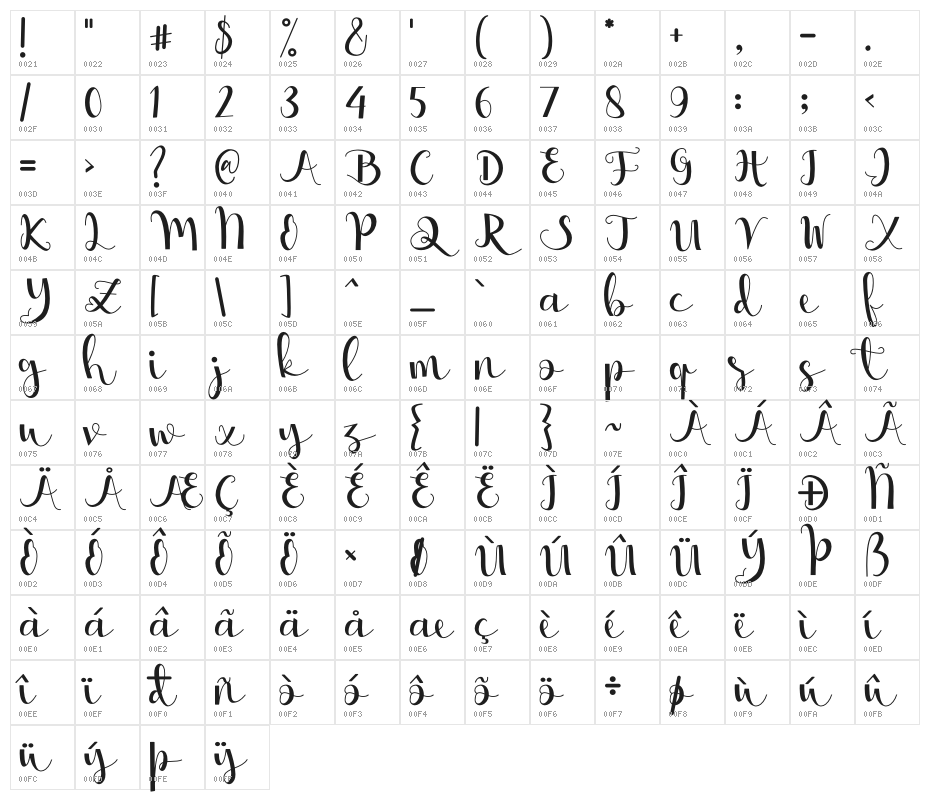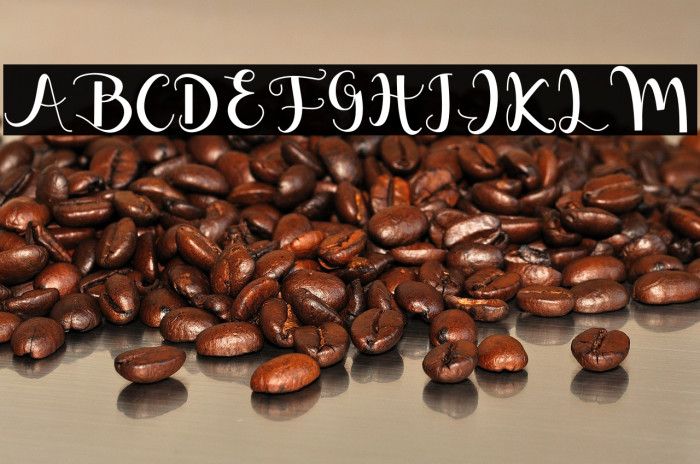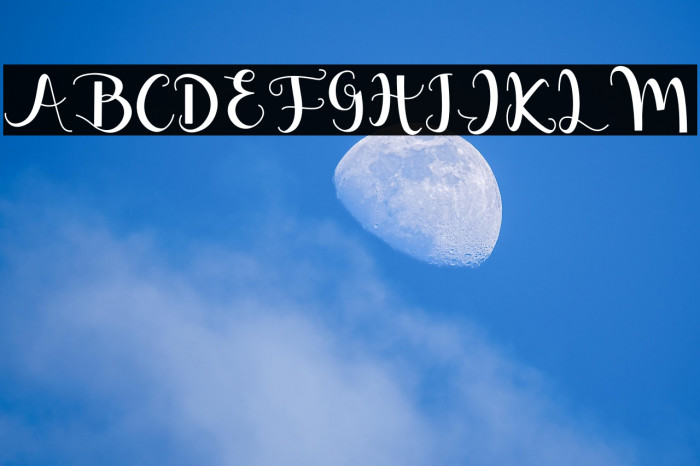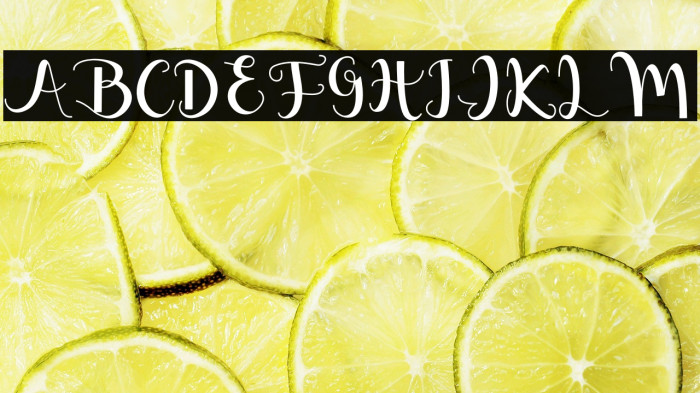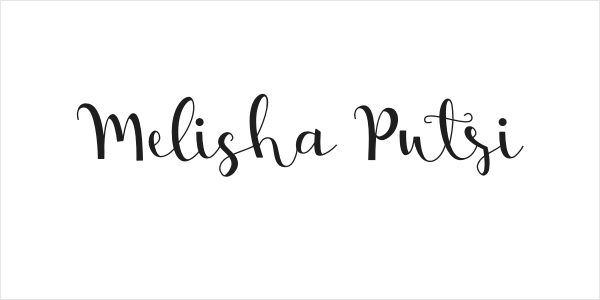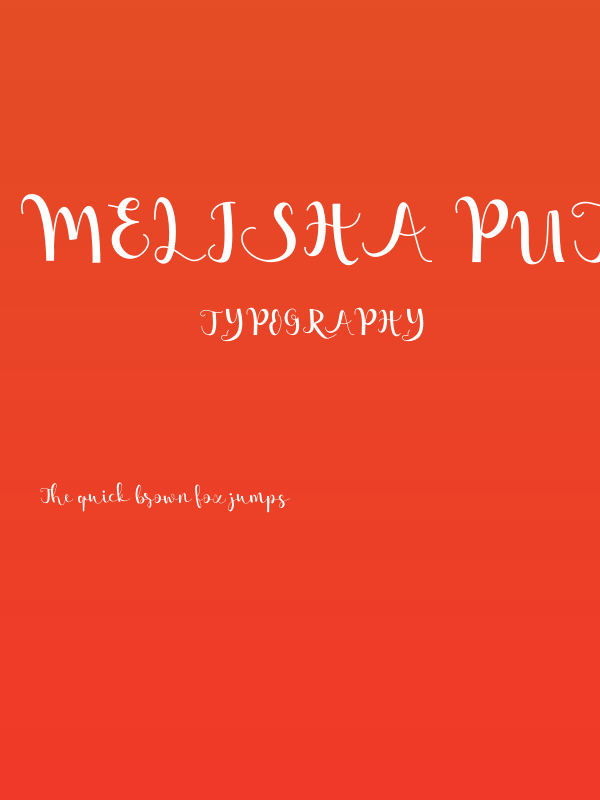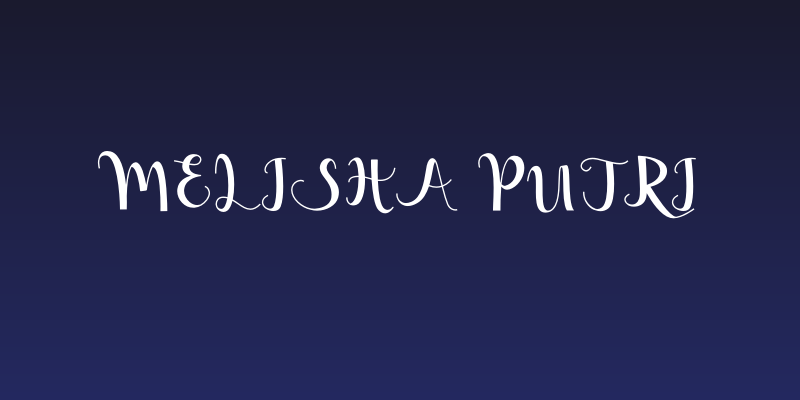
Melisha Putri Font
Melisha Putri Description
This font features a playful and elegant script style with a modern twist. The uppercase letters are characterized by their flowing, cursive forms with decorative swashes, adding a touch of sophistication. The lowercase letters maintain a consistent style, with smooth curves and a slightly whimsical appearance. The numerals are bold and distinct, complementing the overall design. Special characters are creatively integrated, enhancing the font's versatility. This font is perfect for projects that require a personal and artistic touch, such as invitations, branding, and creative designs.
| Use Case | Logos, Invitations, Creative Designs |
| Proposed Projects | Ideal for wedding invitations, branding, greeting cards, and artistic projects. |